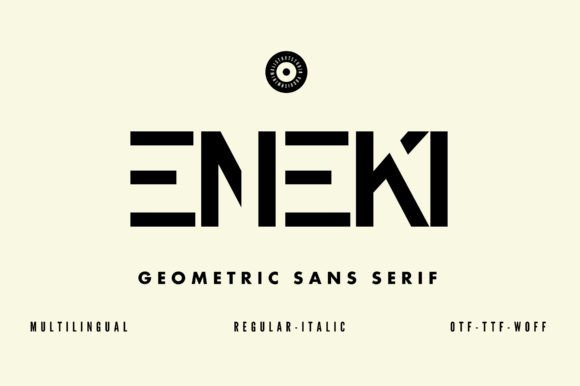
Introducing Eneki Font, the epitome of minimalist design and sophistication, crafted by the renowned Minimalistartstudio. This sans serif grotesque typeface captivates with its clean lines and poised design, making it a versatile choice for diverse projects.
Embark on a creative journey with Eneki, the font that seamlessly blends simplicity and sophistication. From professional presentations to captivating logos and marketing materials, Eneki adapts effortlessly, becoming an integral part of your design arsenal.
Dive into the world of Eneki, a font with a wide range of weights and styles, allowing you to customize your designs seamlessly. Whether it's a digital platform or print media, Eneki's adaptability shines, ensuring a cohesive and impactful representation of your ideas.
Experience the allure of modern elegance with Eneki, a font that elevates your designs to new heights. Its timeless simplicity unlocks the potential of refined aesthetics, adding a touch of sophistication to your summer projects.
Embrace Eneki, the gateway to refined aesthetics and captivating charm. Let your design speak volumes with the grace and poise of Eneki, leaving an everlasting impression of elegance and sophistication.